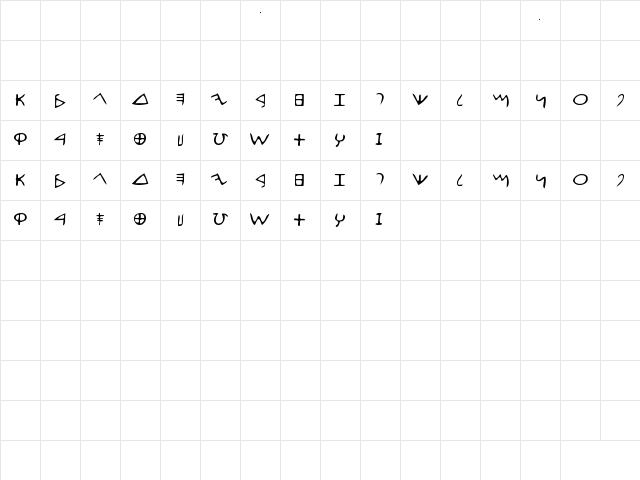
Complete efontalution_part1 Regular glyph index. Displaying only characters natively supported by efontalution_part1 Regular font.
efontalution_part1 is a composed and adaptable typeface that performs quietly and consistently across a wide range of design contexts.